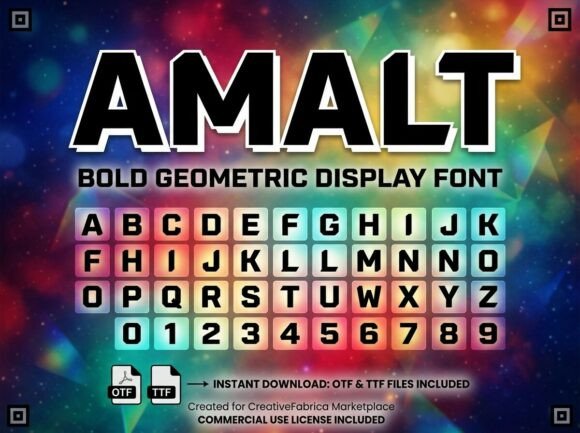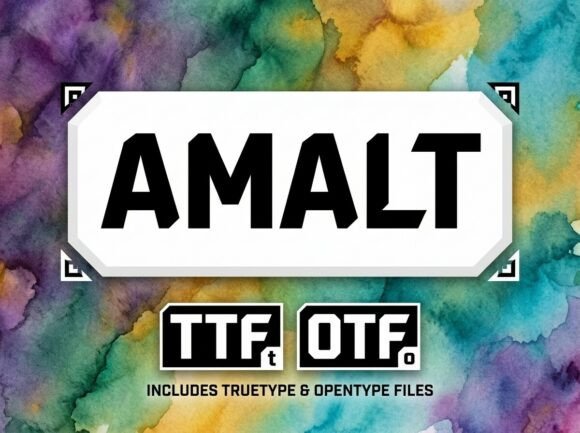
Unlocking the Future of Design with AMALT
Have you ever stared at a sleek, futuristic logo and wondered what font was behind its bold, architectural style? For designers, there’s a secret to unlocking this look: the Amalt Font. This powerful display typeface is more than just a trendy font – it’s a gateway to capturing the essence of a tech-forward, cutting-edge aesthetic.
With its heavy, geometric sans-serif letterforms and sharp, 45-degree angled terminals, the Amalt Font is the perfect choice for designers looking to make a statement. Whether you’re working on an independent esports branding project, a futuristic gaming logo, or a high-impact social media header, this font is sure to bring your designs to life. Its massive structural weight and high-contrast presence make it a valuable asset for any designer looking to push the boundaries of digital design.
Key Features of Amalt Font
- Font Family: Amalt is a sans-serif font family that includes 4 styles: Regular, Bold, Italic, and Bold Italic.
- Unique Characteristics: Amalt features a clean and modern design, with a subtle rounded edge and a clear, open feel that makes it suitable for digital and print applications.
- Language Support: Supports a wide range of languages, including Latin, Cyrillic, Greek, and many others, with over 1000 glyphs in the Regular style.
Amalt Font Review
As a designer, I’ve had the chance to work with a variety of fonts, and the Amalt font is definitely one that stands out. ✨ One of the things I love about this font is its unique blend of modern and classic elements. The clean lines and minimalist aesthetic make it perfect for a wide range of applications, from tech companies to fashion brands.
Another thing that works well is the Amalt font’s versatility. ✨ It comes in multiple weights and styles, making it easy to use for both headlines and body text. I’ve also found that it pairs well with a variety of other fonts, which makes it a great addition to any font library.
- ⚠️ Limited language support: Amalt font is primarily designed for English and may not support other languages as well.
- ⚠️ May not be suitable for very small text sizes: While the font is generally clear and legible, it may become difficult to read at very small sizes.
Overall, I’m really impressed with the Amalt font. ✨ It’s a great choice for designers looking for a modern, yet classic font that’s versatile and easy to use. While it may have some limitations, I think it’s definitely worth considering for your next design project.
– Use Amalt Font for headings and titles to create a unique visual identity.
– Pair Amalt Font with a clean sans-serif font for body text.
– Experiment with different font sizes and styles to create visual interest.
Amalt Font is ideal for:
– Headings and titles
– Creative and design projects
– Digital and print media
Alternatives to Amalt Font for Designers
Montserrat is a modern sans-serif font designed by Julieta Ulanovsky. It’s ideal for digital applications, including websites, mobile apps, and social media. Montserrat is a great choice for designers who want a clean and minimalist look.
Comparison to Amalt Font: Montserrat has a more geometric and structured feel, while Amalt Font has a more rounded and friendly appearance. Montserrat is more suitable for digital applications, while Amalt Font is better for print materials.
Oswald
Oswald is a sans-serif font designed by Vernon Adams. It’s a versatile font that can be used for both digital and print applications. Oswald is ideal for designers who want a font that’s both modern and classic.
Comparison to Amalt Font: Oswald has a more classic and elegant feel, while Amalt Font has a more modern and playful appearance. Oswald is more suitable for corporate and professional materials, while Amalt Font is better for creative and artistic projects.